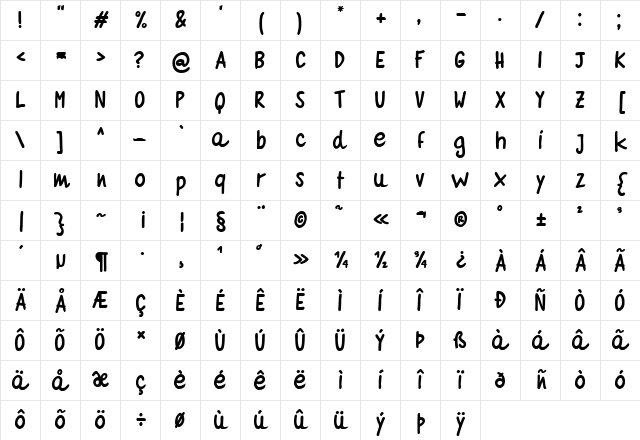
Quaderno Bianco Bold Free Font
Quaderno Bianco Bold
Foundry: Monocromo s.n.c.
Designer: Katiuscia Mari for Monocromo
Design Context for Quaderno Bianco
Quaderno Bianco is a composed and adaptable typeface that performs quietly and consistently across a wide range of design contexts. Its bold stroke weight gives it real presence on the page.